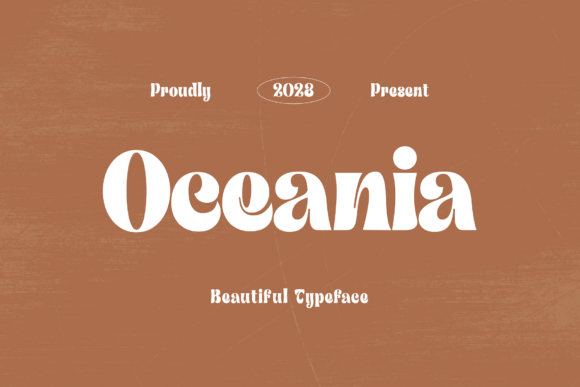
Behold, the Oceania Font, a typographic masterpiece that will elevate your designs to new heights of sophistication. Each character is a work of art, meticulously crafted to exude timeless beauty and grace. Oceania is the perfect choice for those who seek to create designs that leave a lasting impression.
Imagine your wedding invitations adorned with the elegant curves and flourishes of Oceania. The font's delicate serifs add a touch of romance and charm, ensuring that your special day is announced in a way that is both unforgettable and stylish.
Envision your logo, a symbol of your brand, rendered in the bold and confident strokes of Oceania. The font's strong presence commands attention, making your brand stand out from the crowd and leaving an indelible mark on the minds of your customers.
Picture your branding materials, infused with the timeless elegance of Oceania. The font's classic beauty adds a touch of refinement to your business cards, brochures, and website, creating a cohesive and professional image that speaks volumes about your attention to detail and commitment to excellence.
With Oceania, the possibilities are endless. Unleash your creativity and let your designs soar to new heights of elegance and sophistication. Embrace the beauty of Oceania and transform your designs into works of art that captivate and inspire.